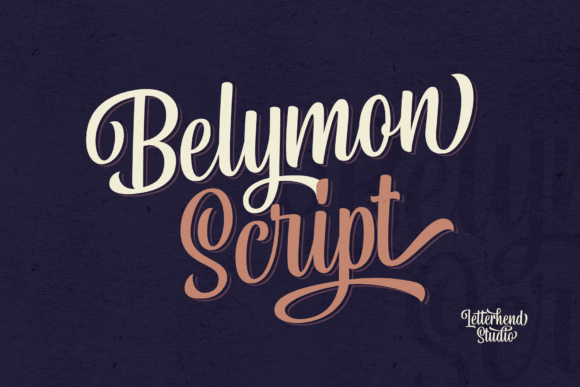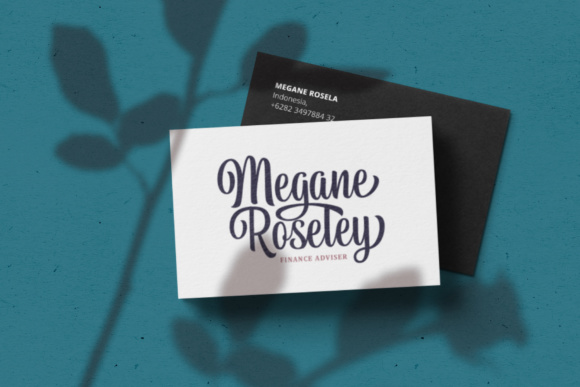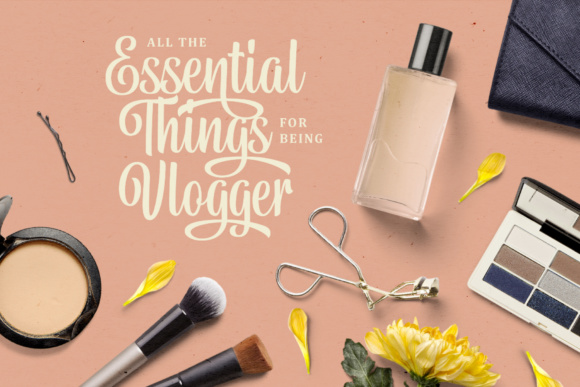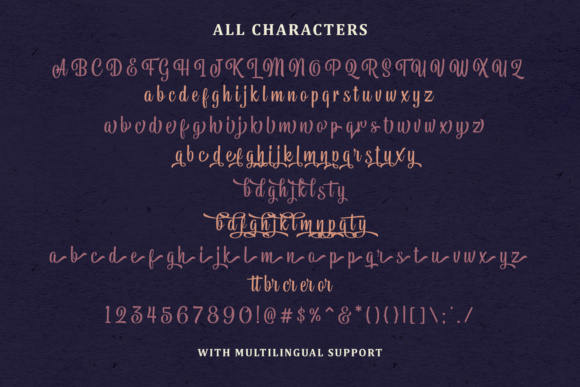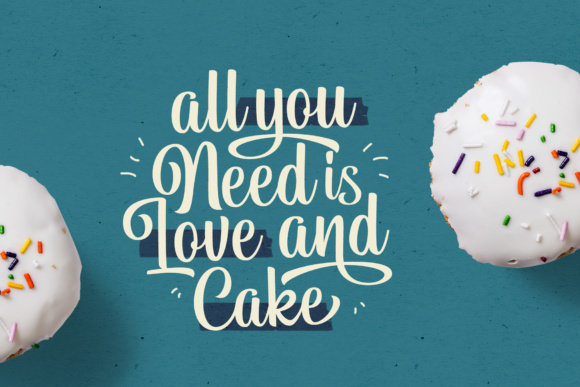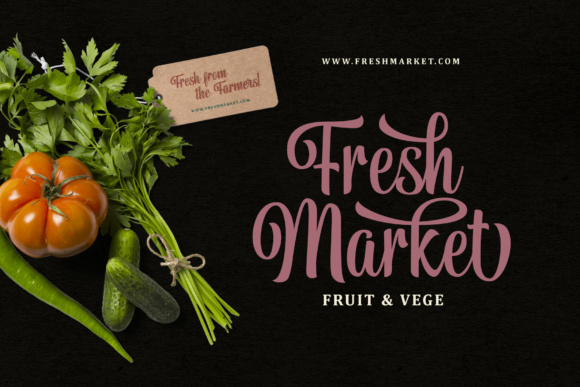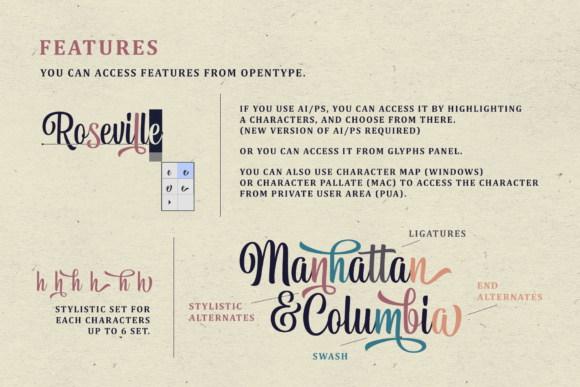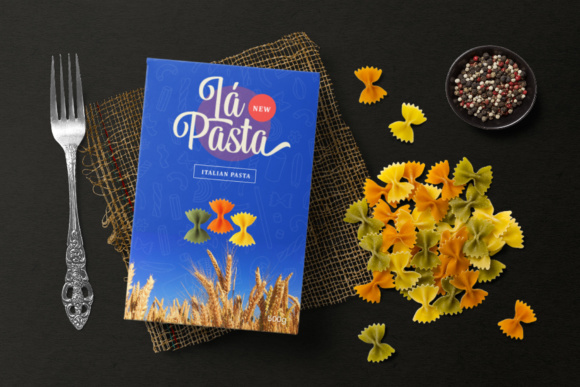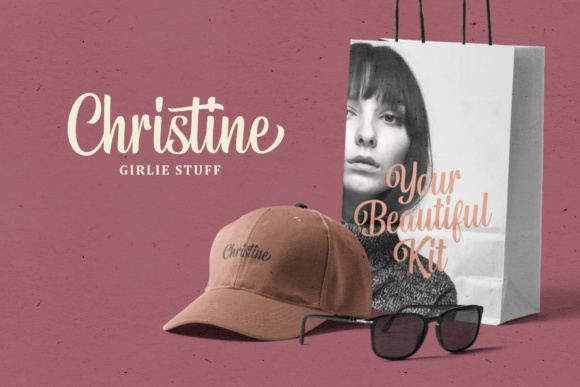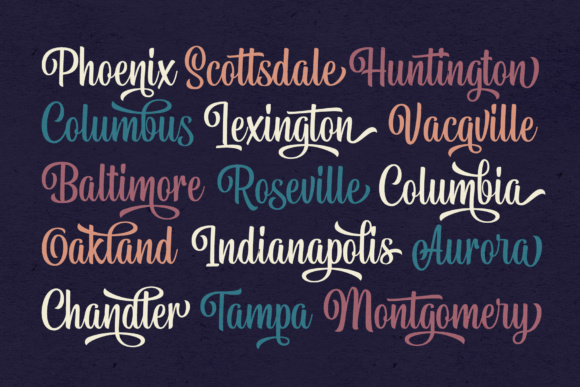
Belymon Script Font
About Belymon Script Font
The Belymon is a one-of-a-kind script with a classic touch. It has a good readability.
It’s perfect for logos, apparel, invitations, branding, packaging, advertising, and much more!